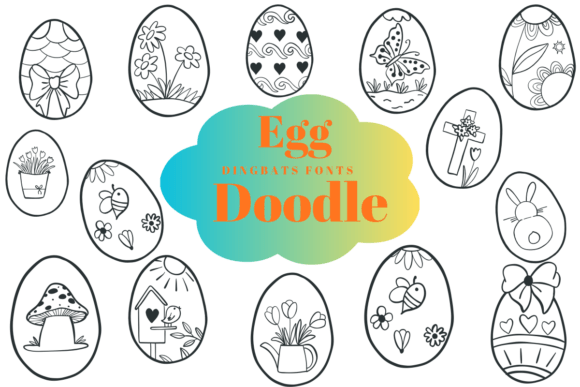
Introduction to Egg Doodle Font
Egg Doodle is a fun dingbats font.
Why Choose Egg Doodle Font?
Egg Doodle Font offers exceptional quality and versatility, making it a valuable addition to your design toolkit. Whether you’re creating for personal projects or commercial use, Egg Doodle Font delivers professional results.